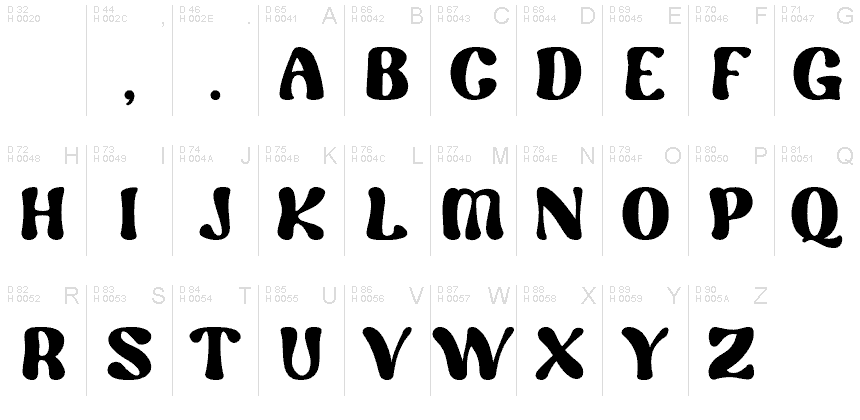
Renaf Regular
Renaf font by Achmad Yani of Flawless and Co. is a groovy display font with retro-inspired shapes, quirky lines, and whimsical letterforms. This free bold display font can be combined with others or even as a standalone to instantly grab the quick attention of any reader that goes by.
A friendly vibe helps Renaf become a nice tool for posters, banners, flyer headers, brochures, birthday cards, invitations, websites, packaging design labels for kids’ products like books or juice boxes. It even fits with t-shirts and other apparel graphics whose target audience is youths or young adults.